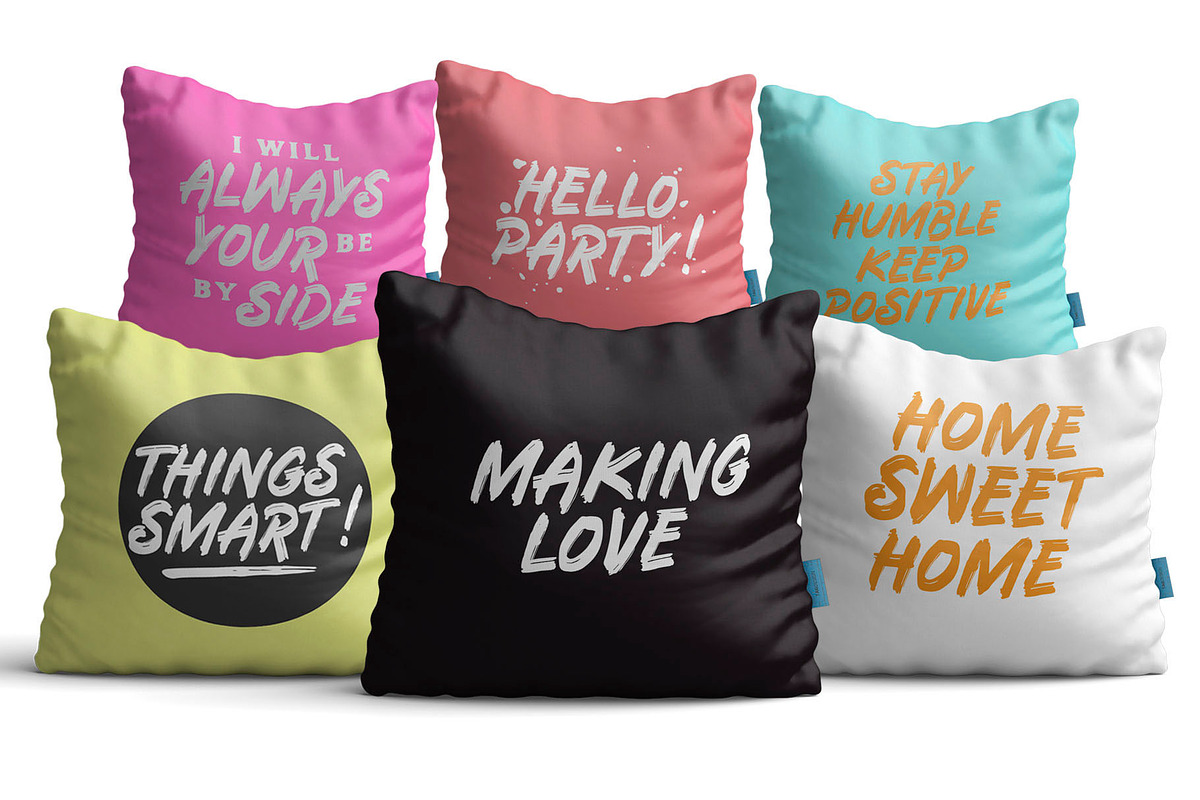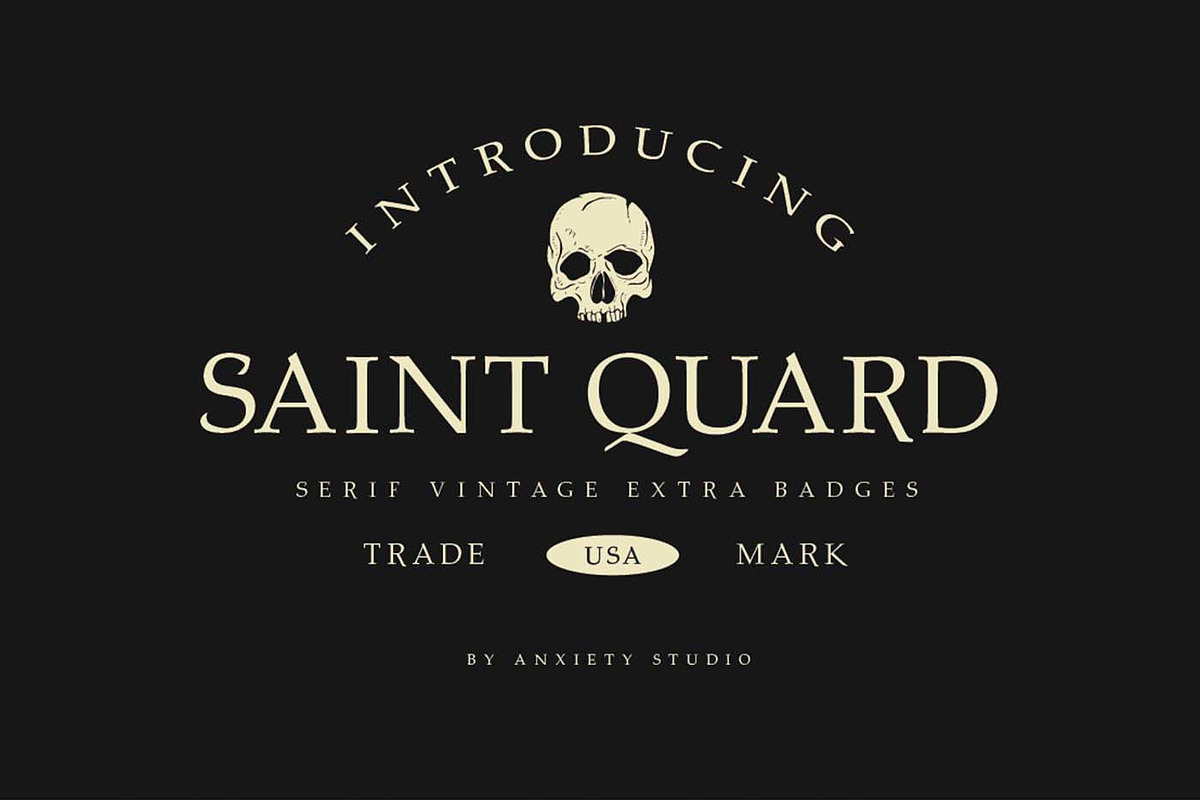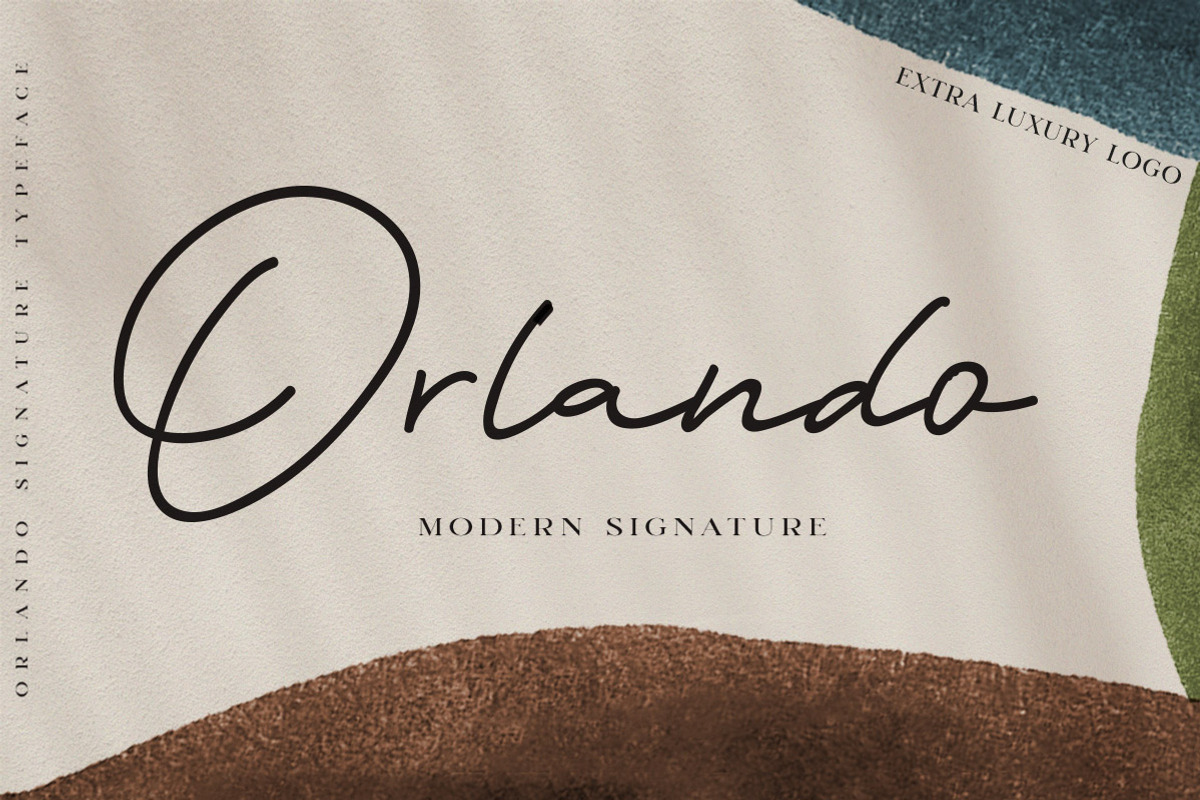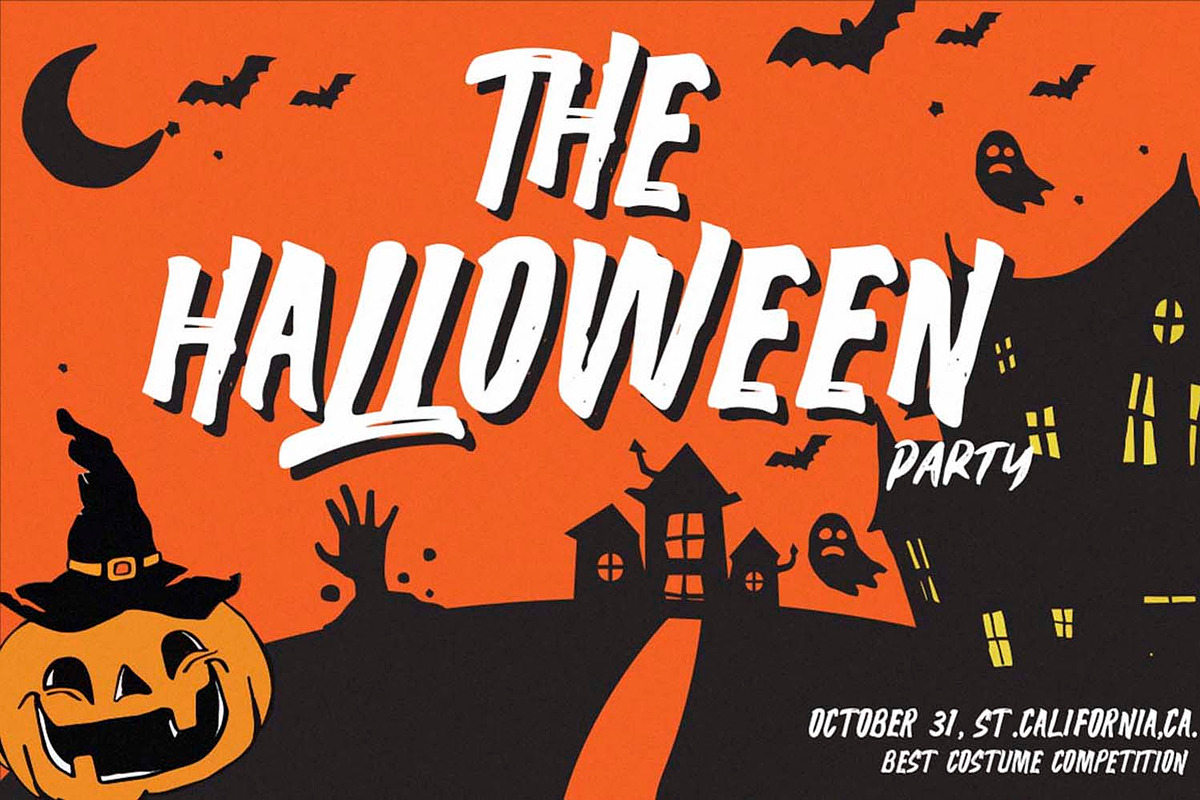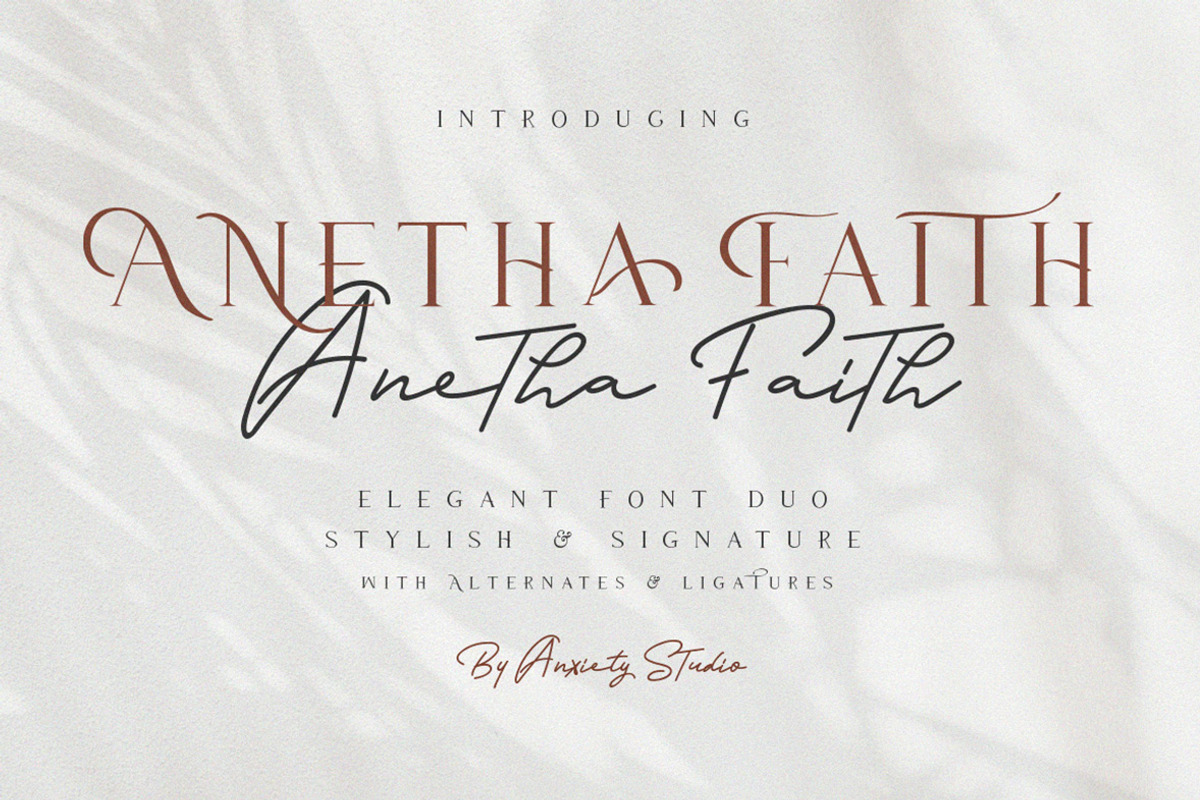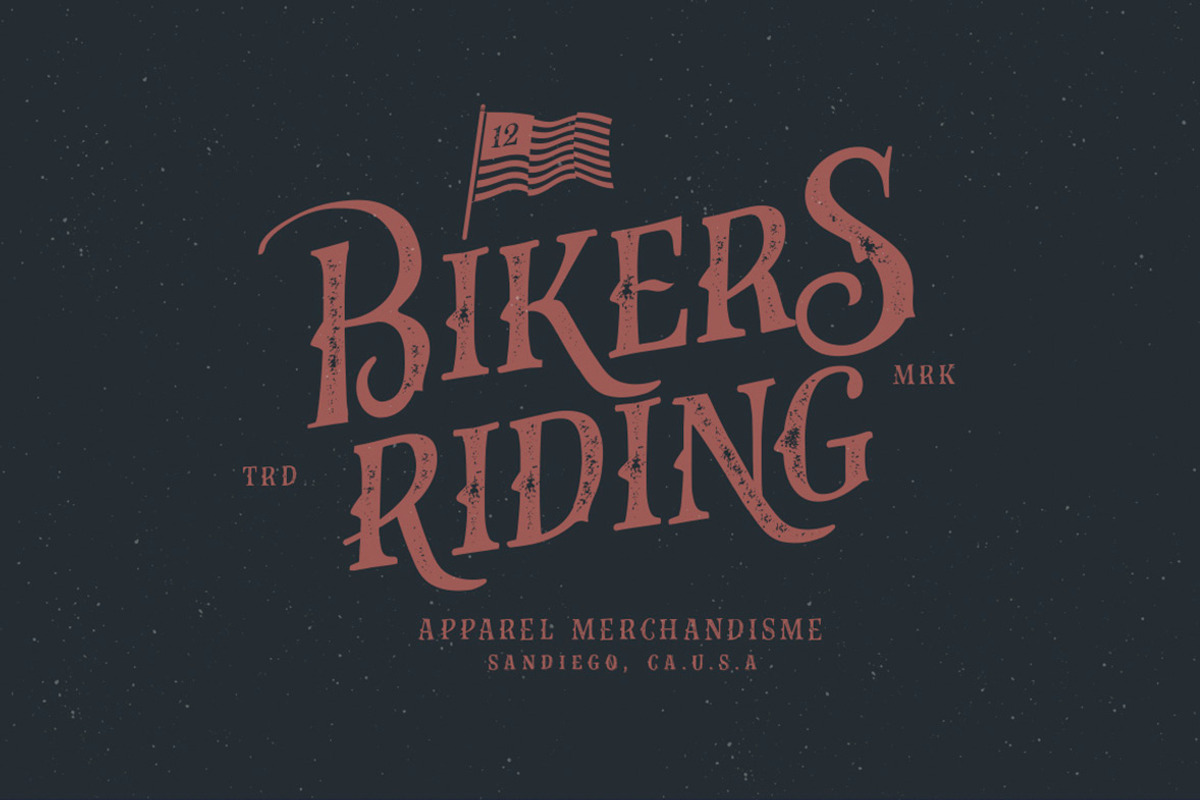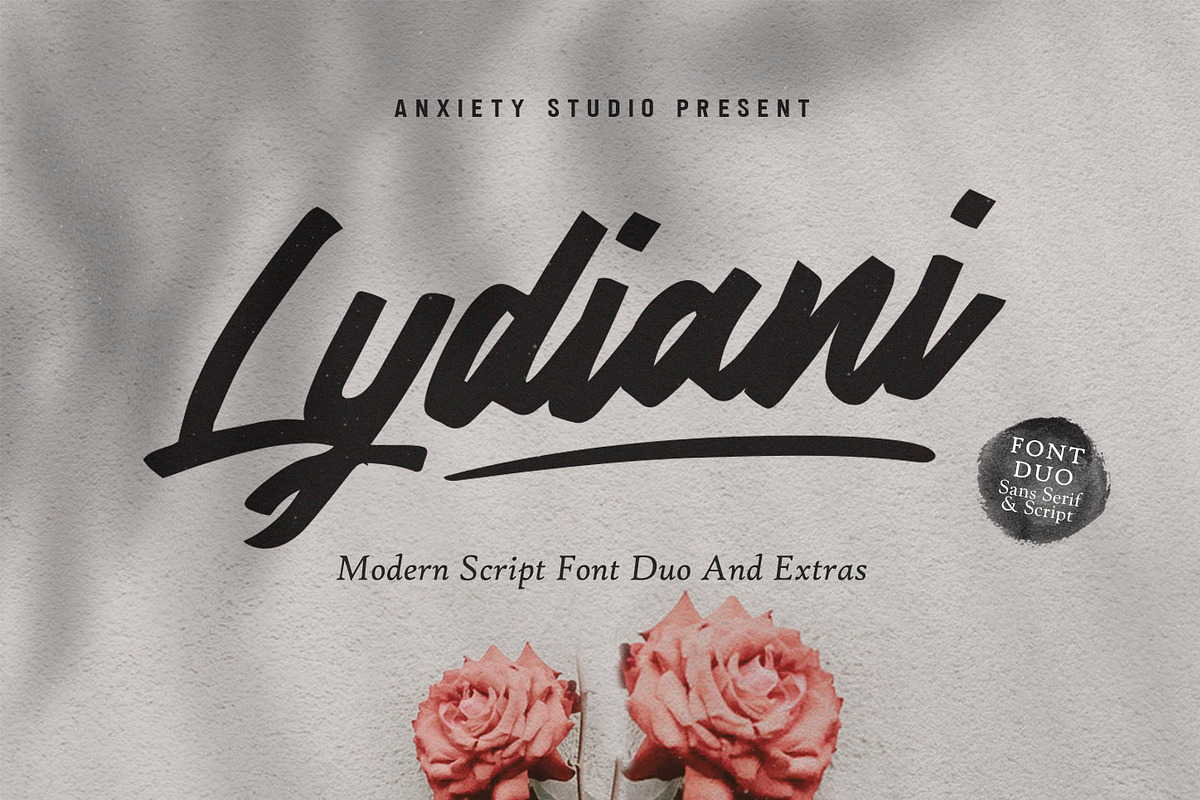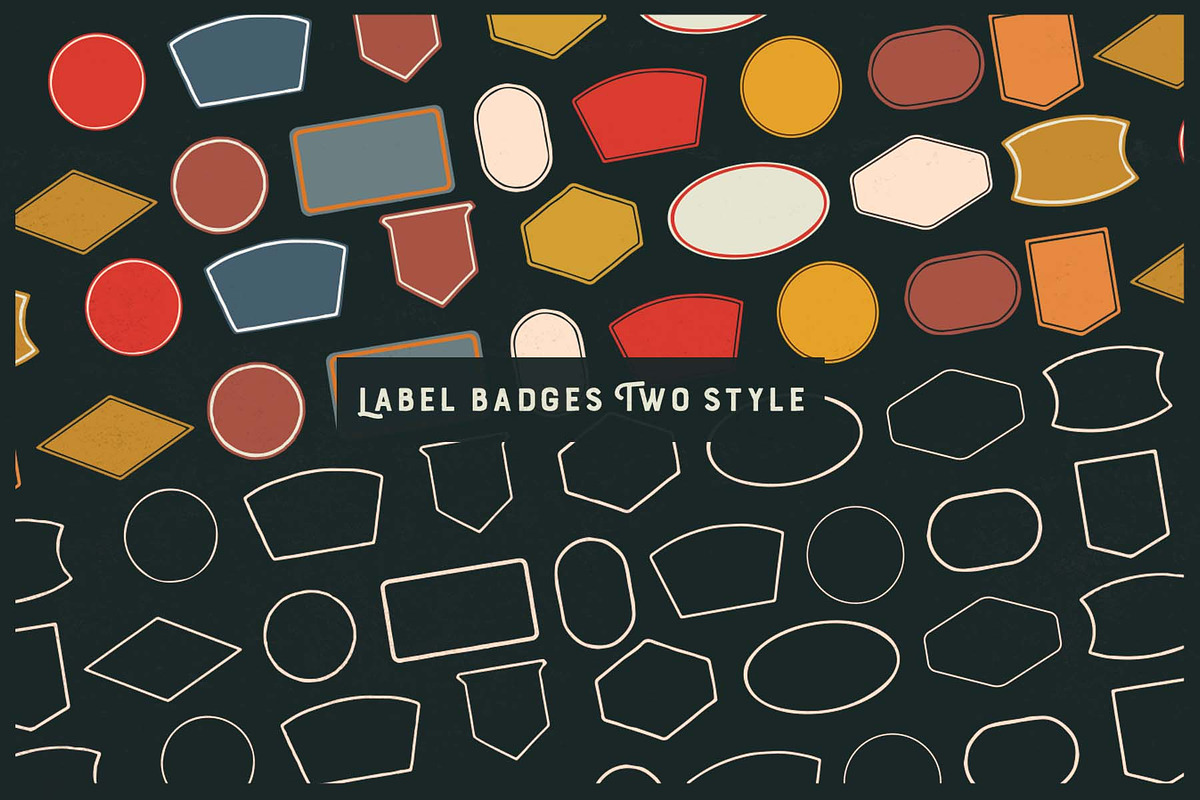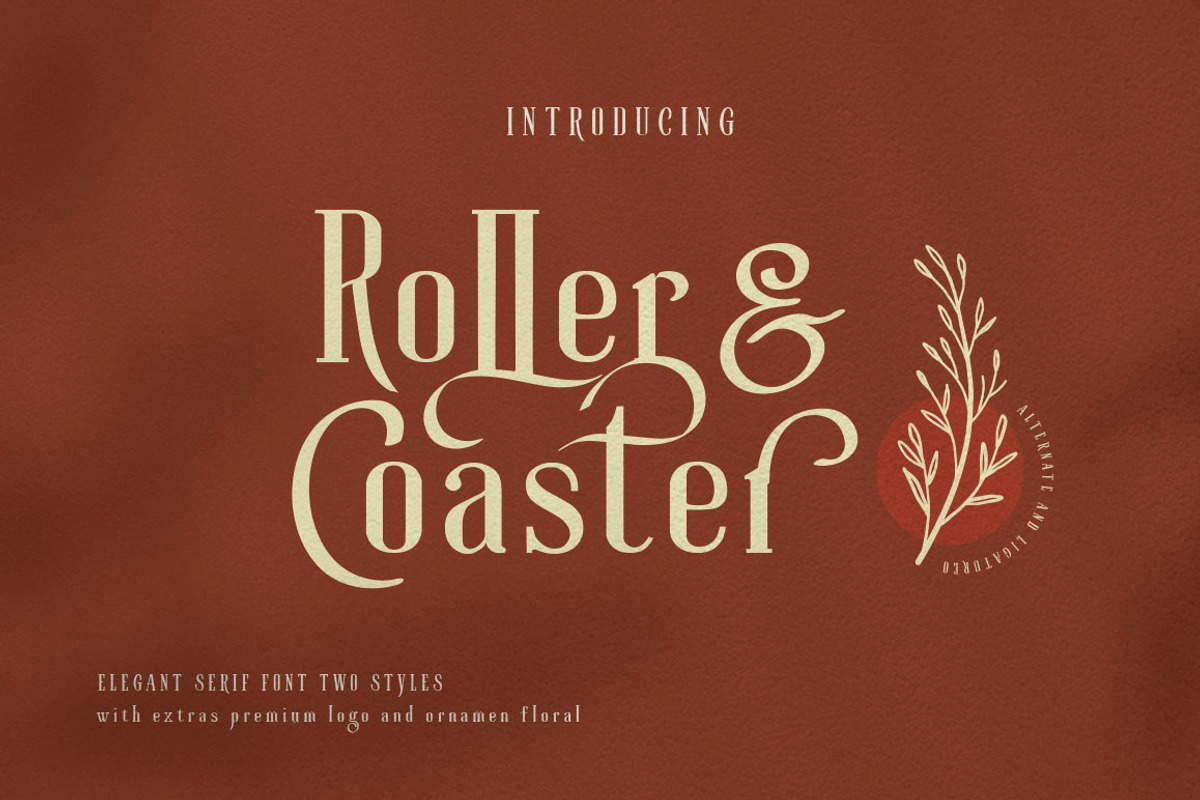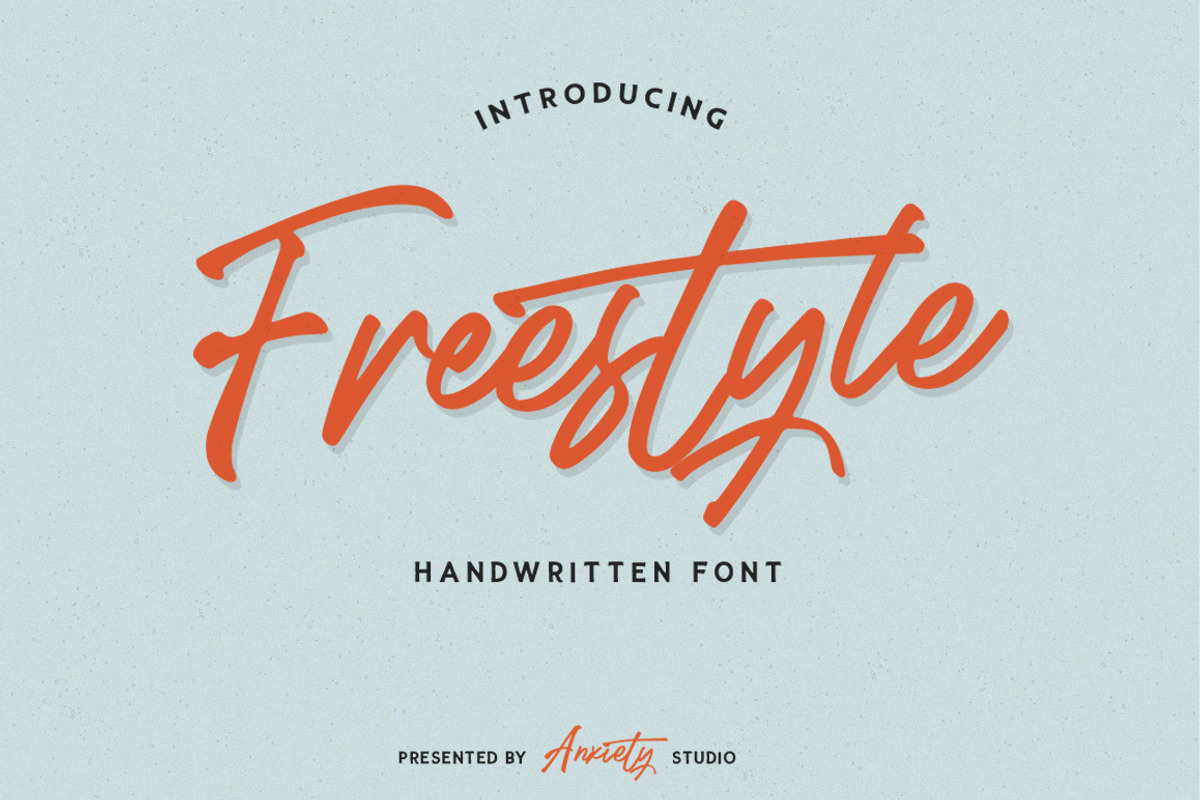
This bundle has various font styles from modern calligraphy, monoline script, grunge, brush font, vintage, victorian, decorative, elegant serif, sans serif, horror, signature style, logotype font, etc. This bundle is called a super sale vintage bundle, because this bundle is limited and almost entirely vintage-style made with a professional touch, with lots of extras, illustrations, logos, badges logos, vintage ornament, etc.
Everything you need to do various projects such as logo design, posters, headlines, wedding cards, invitations, packaging, clothing, etc. With many features like, swash, alternatives, and ligatures.
- Anetha Faith Font Duo
- Blues Vacations
- Fairing Typeface
- Freestyle Script
- Gibsons co
- Gibsons co Vol2
- Hellena Jeslyn Script
- Lydiani Script Font Duo
- Orlando Signature
- Roller Coaster
- Rusty The Buttcher
- Saint Quard Typeface
- The Beatcher Typeface
- The Wolfman
- TunnelsTypeface